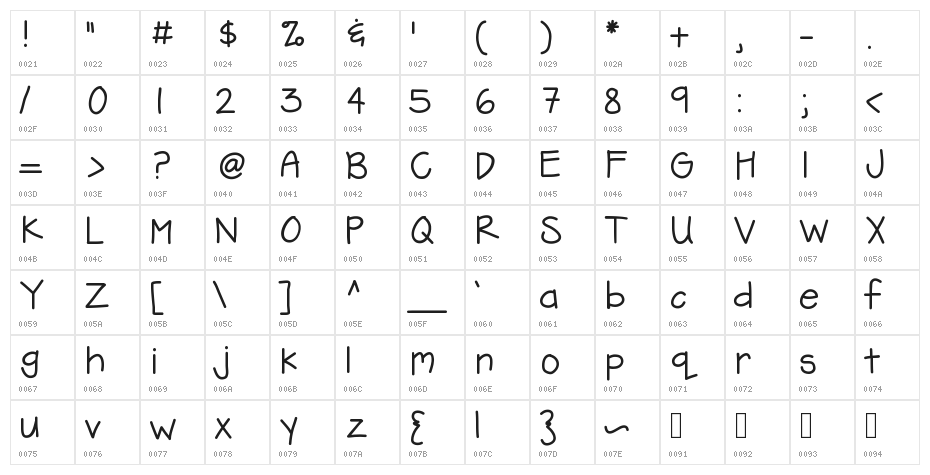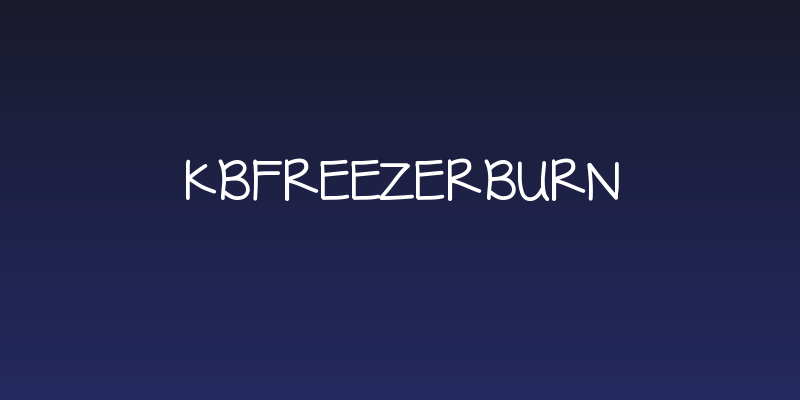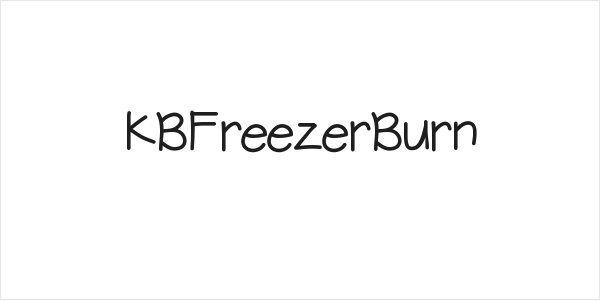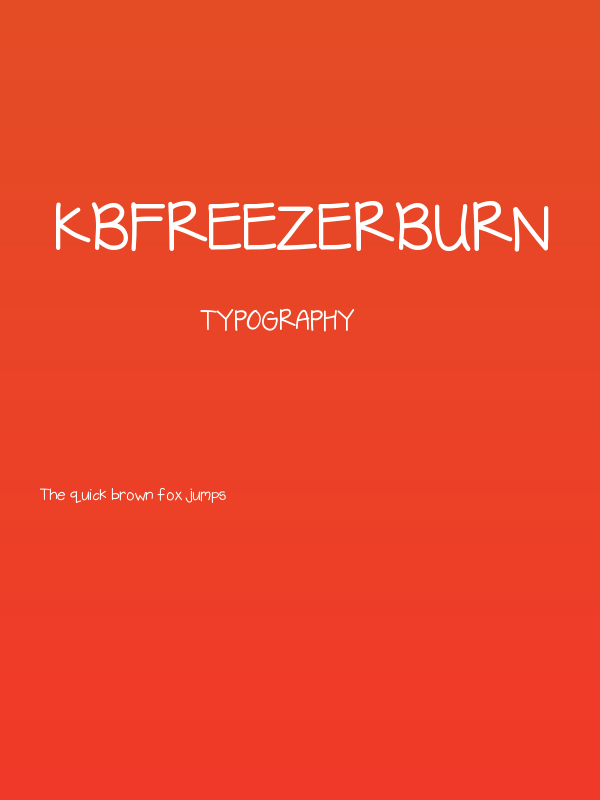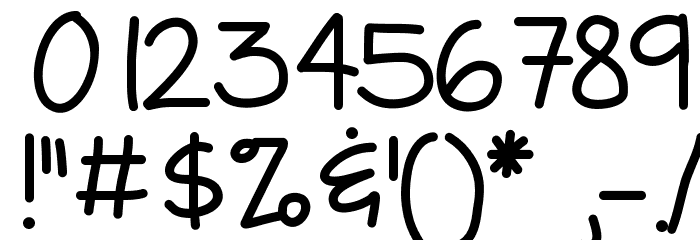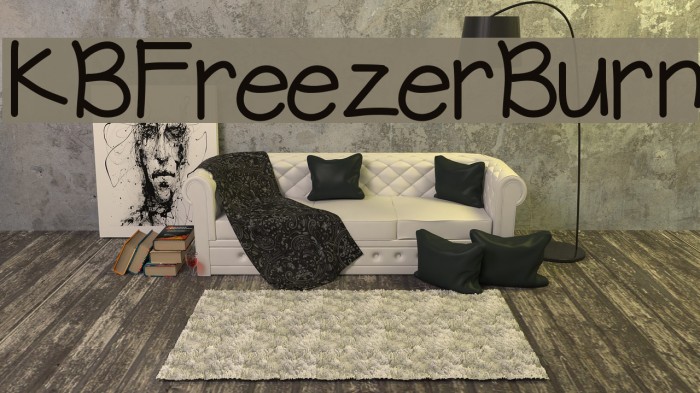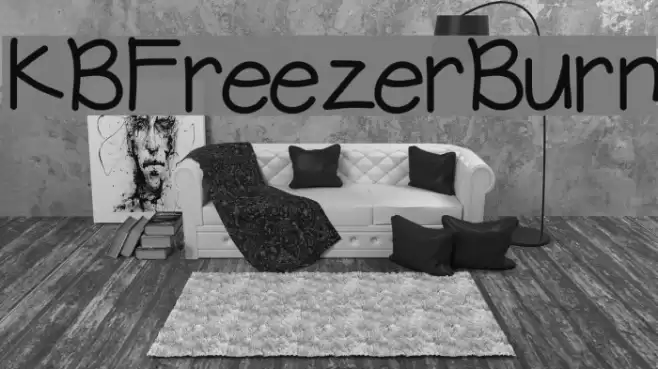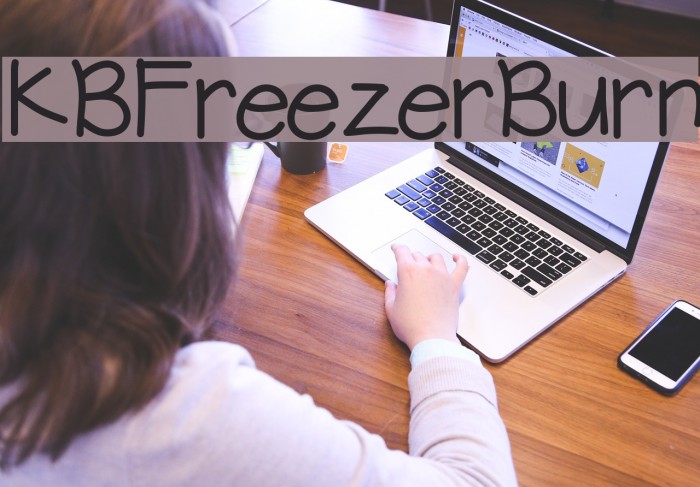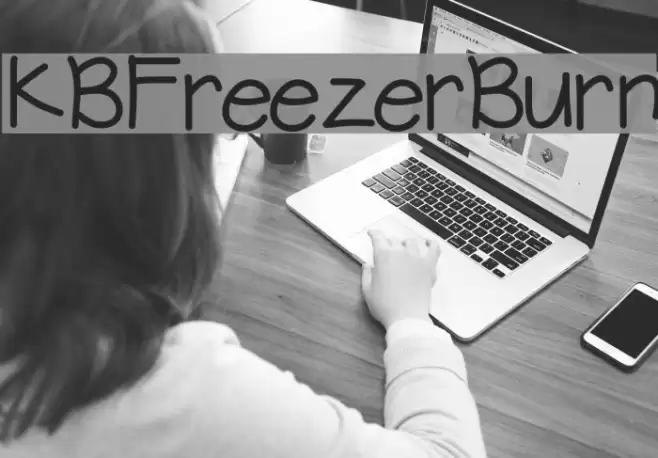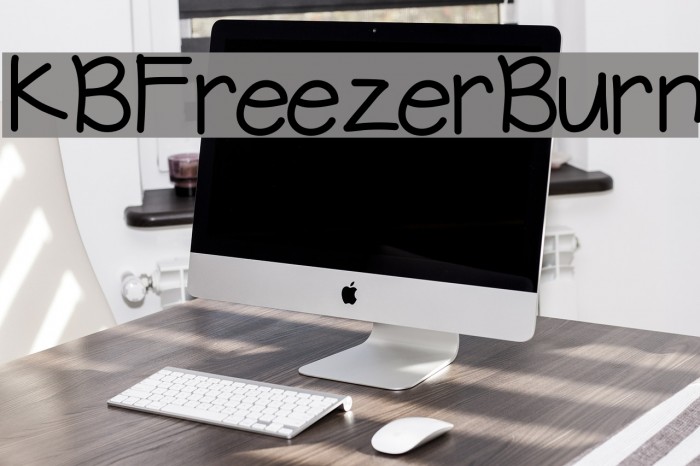
KBFreezerBurn Font
KBFreezerBurn Description
This font features a playful and informal handwritten style, characterized by its rounded and slightly irregular letterforms. The strokes are consistent in weight, giving it a uniform appearance despite its casual nature. The characters have a friendly and approachable feel, making it suitable for projects that require a personal touch. The numerals and special characters maintain the same playful aesthetic, ensuring cohesion across all text elements. Its simplicity and readability make it versatile for various design applications.
| Overall Style | Casual |
| Use Case | Headlines, Informal text, Branding |
| Proposed Projects | Ideal for children's books, greeting cards, casual branding, and social media graphics. |